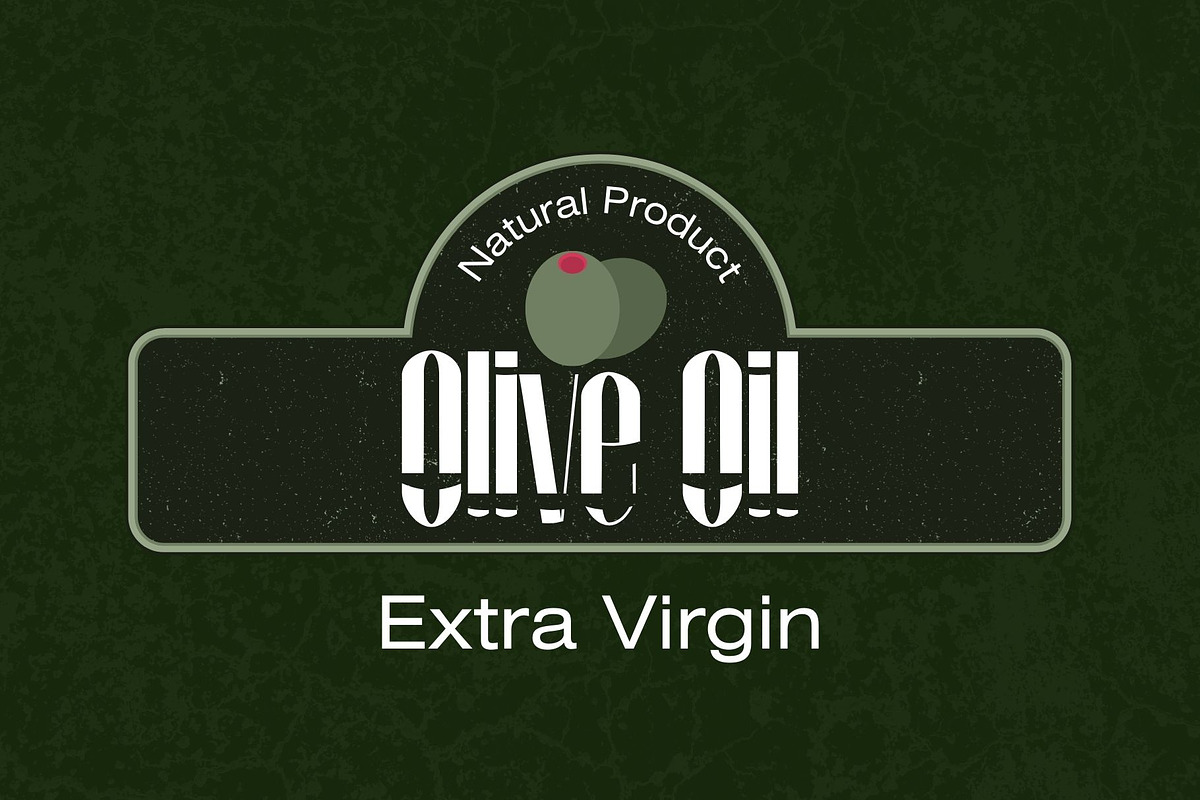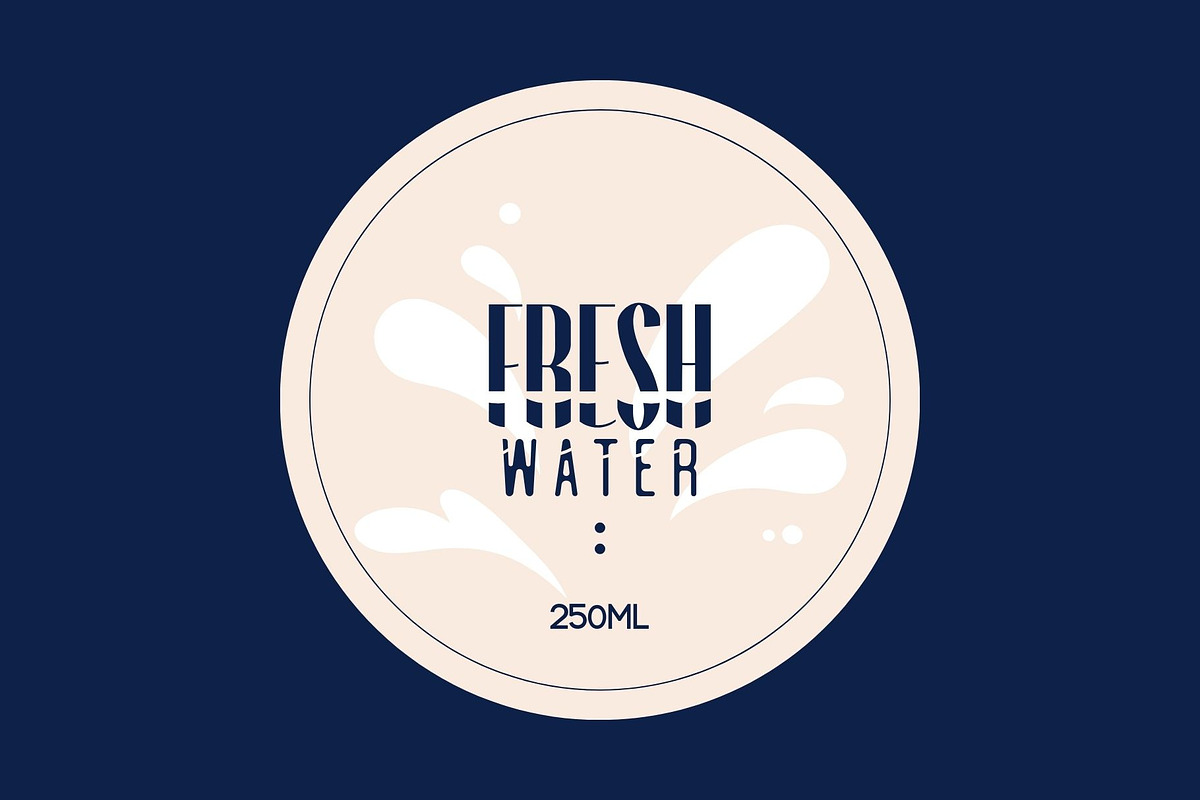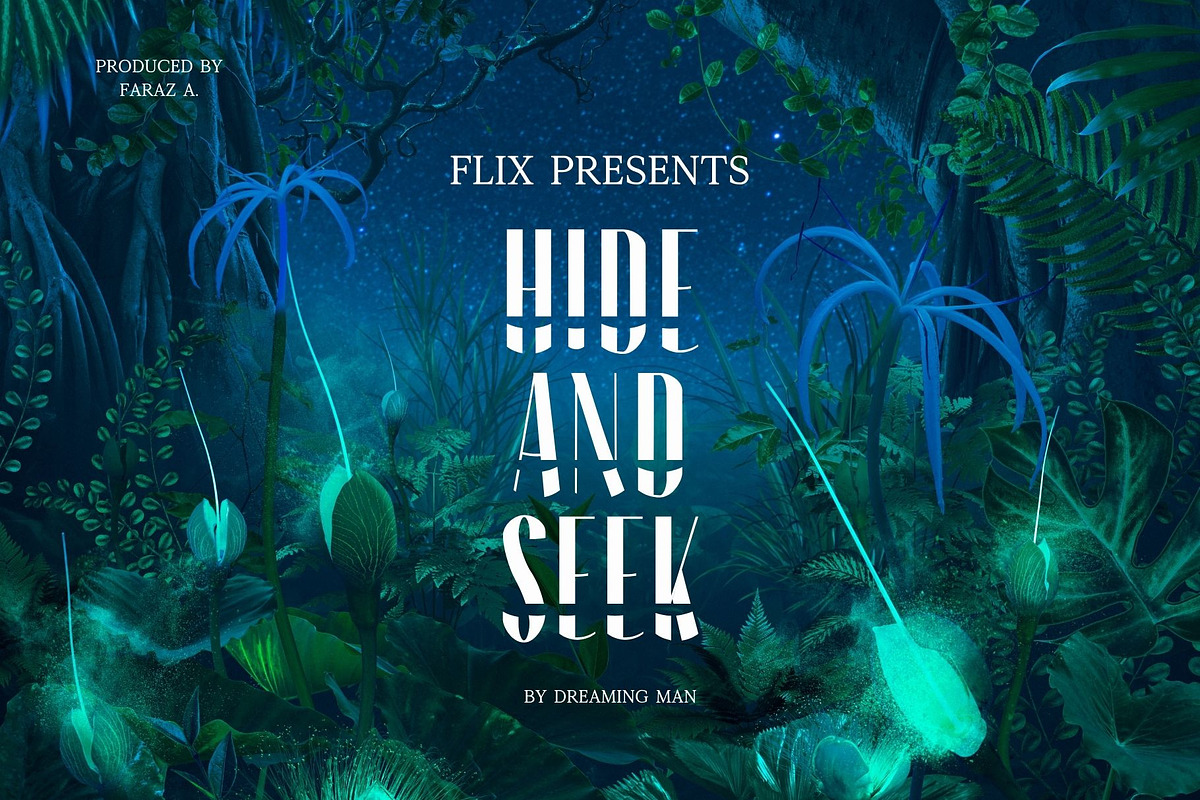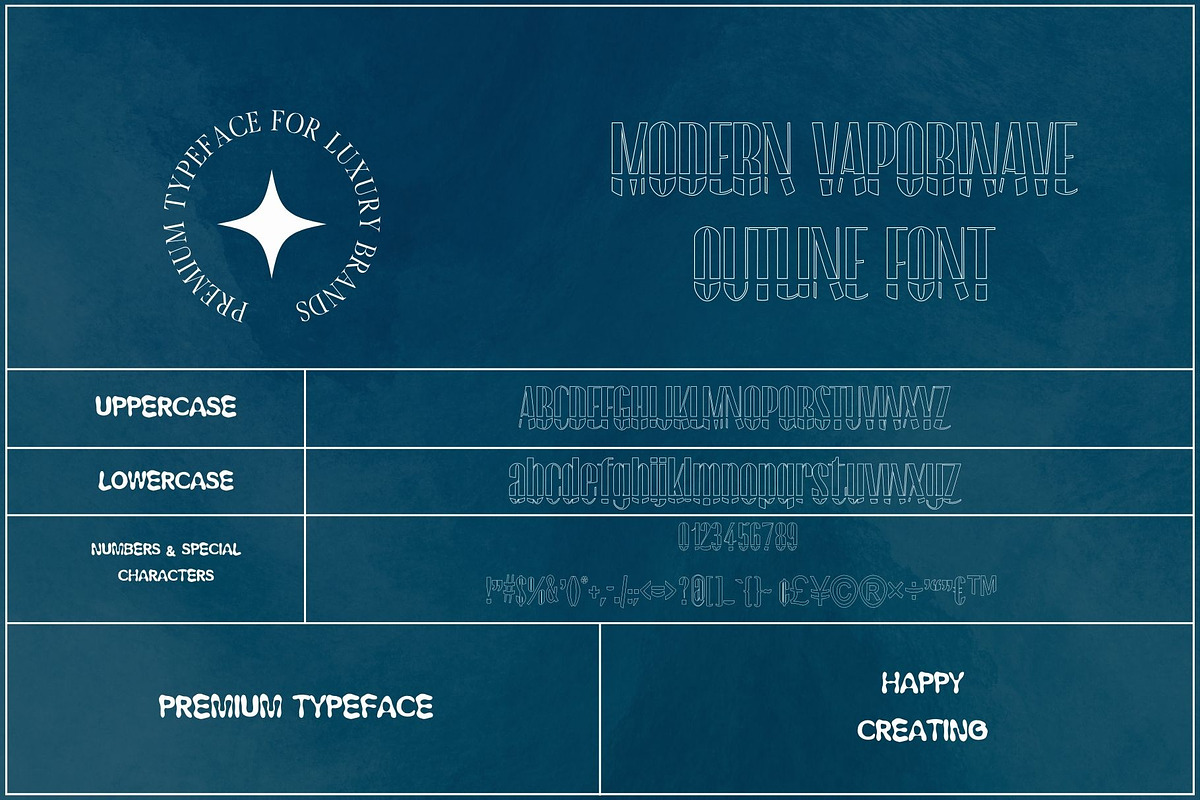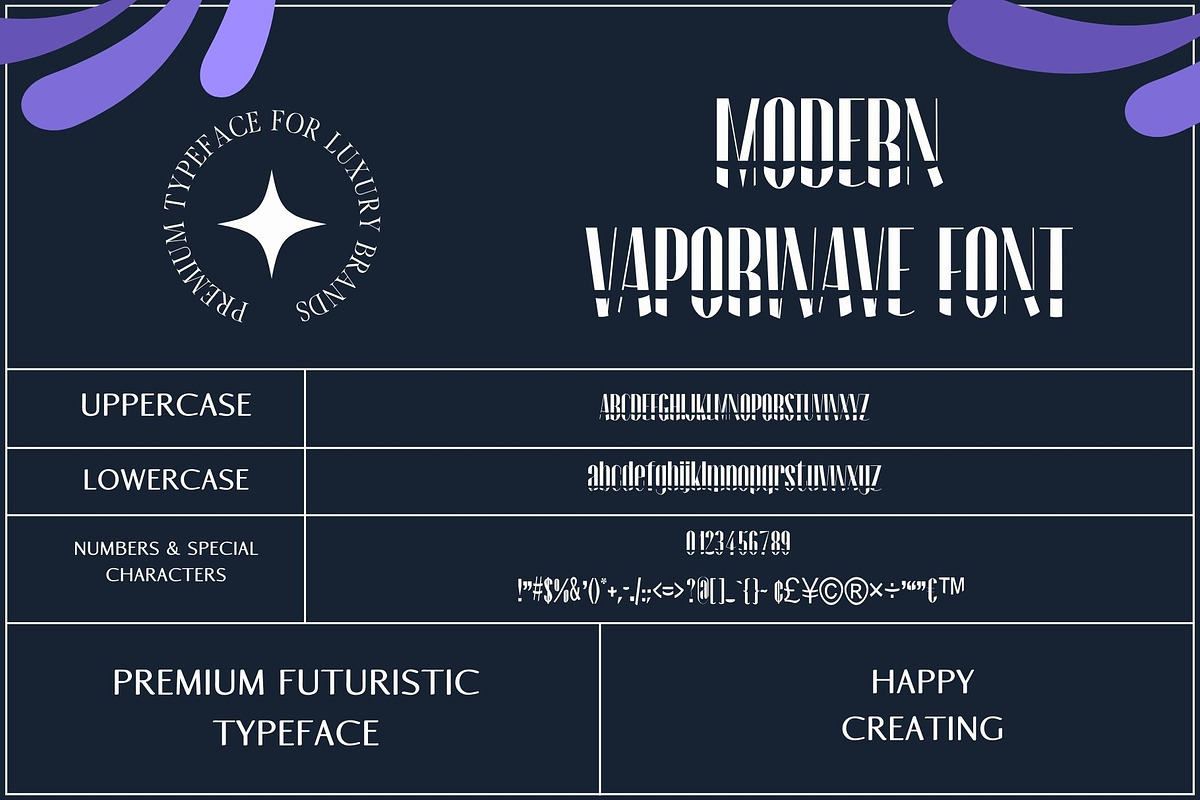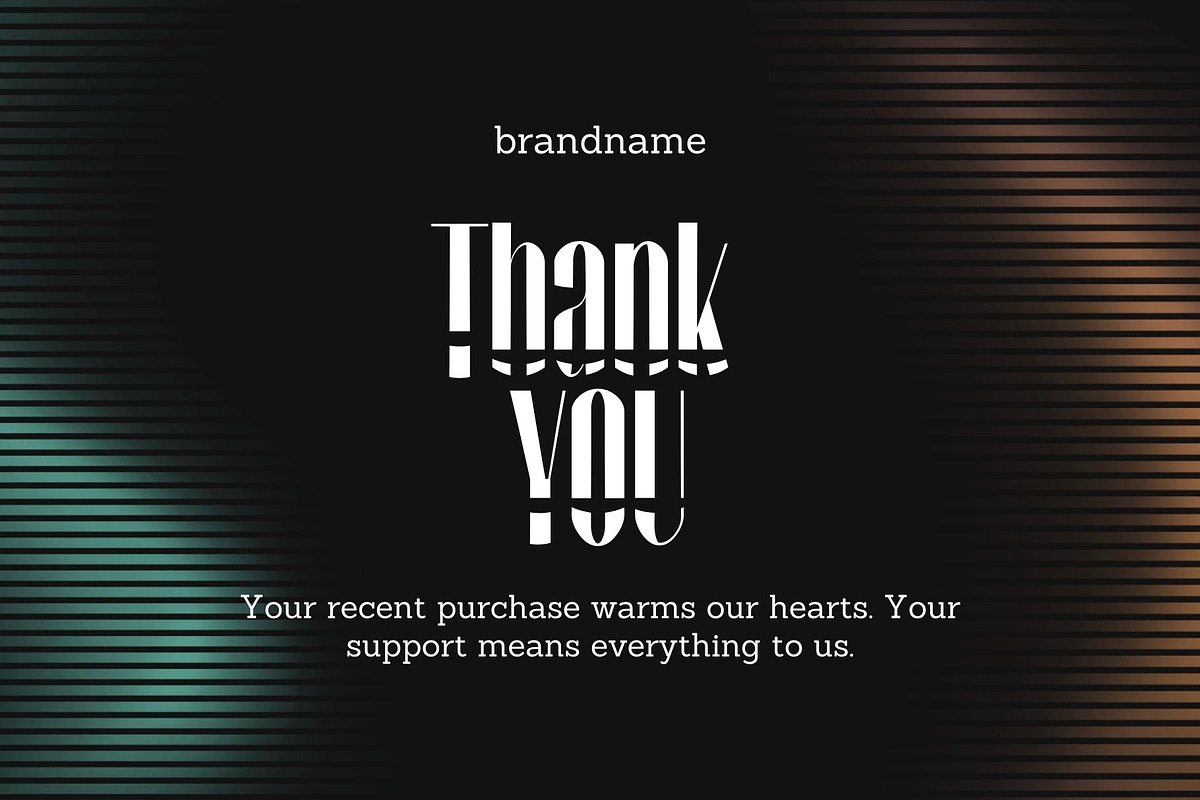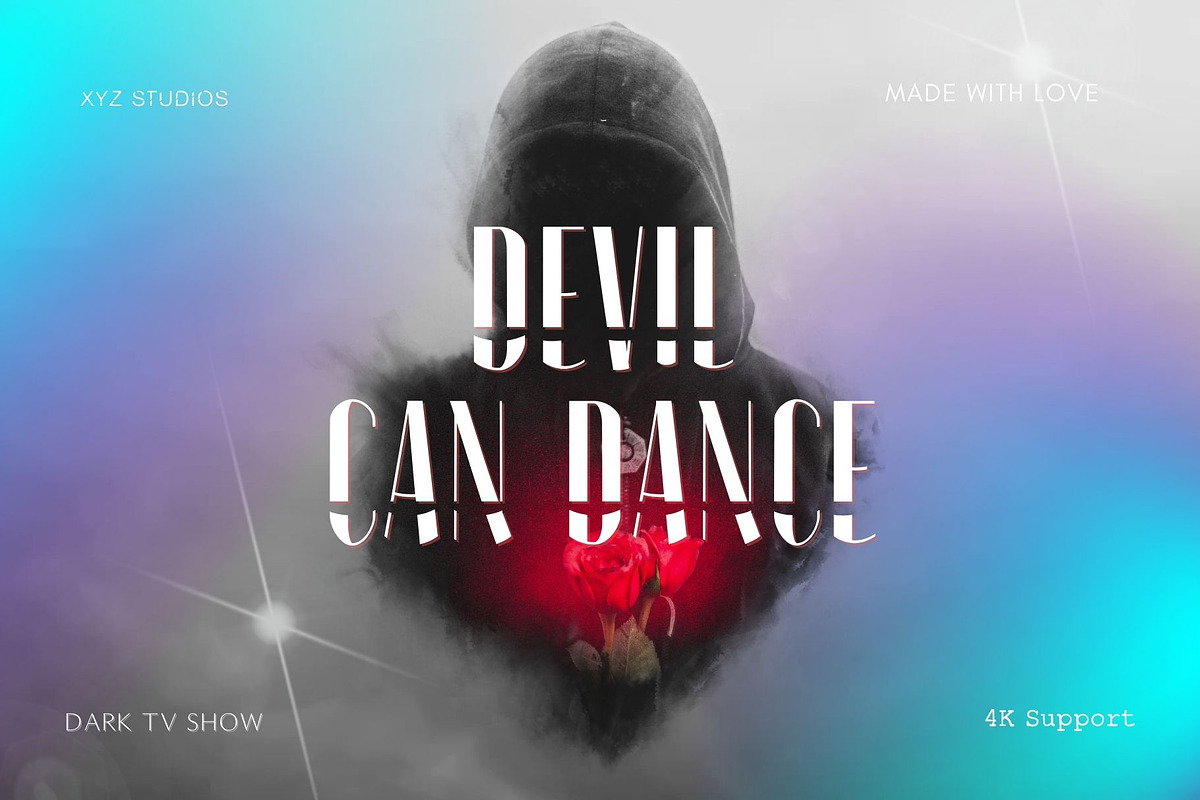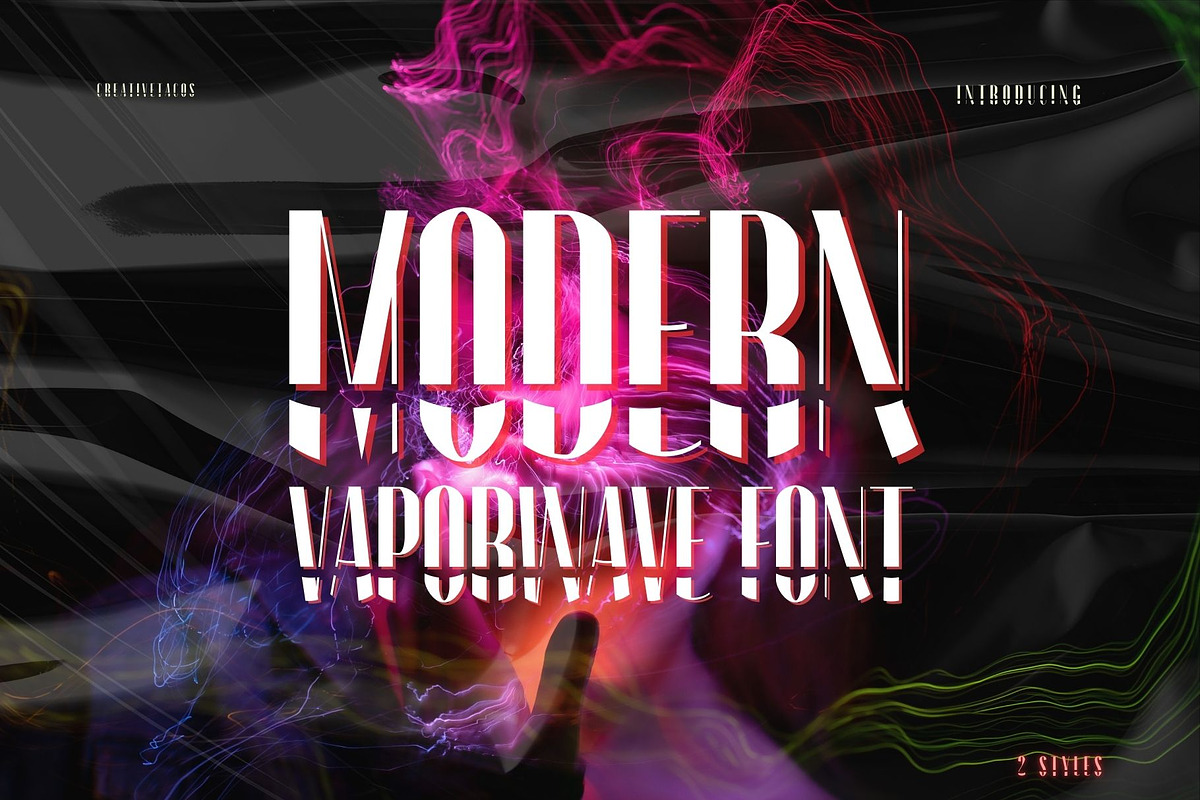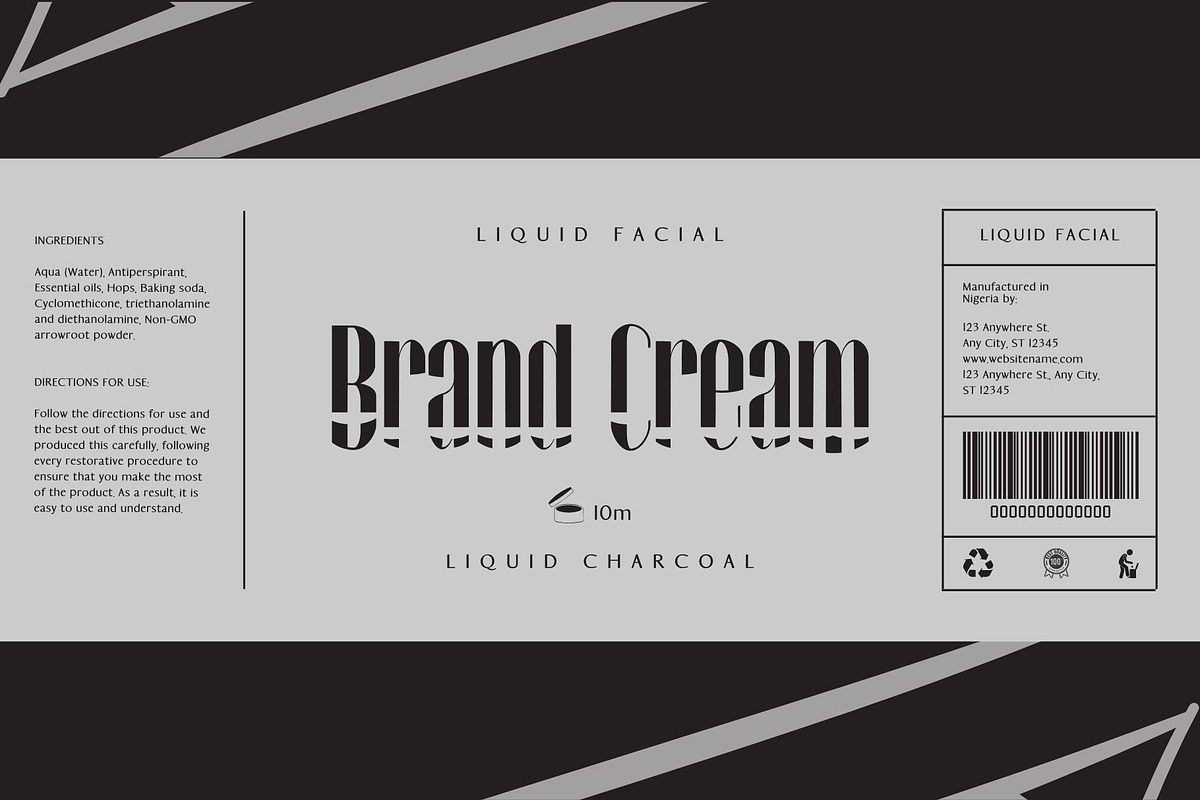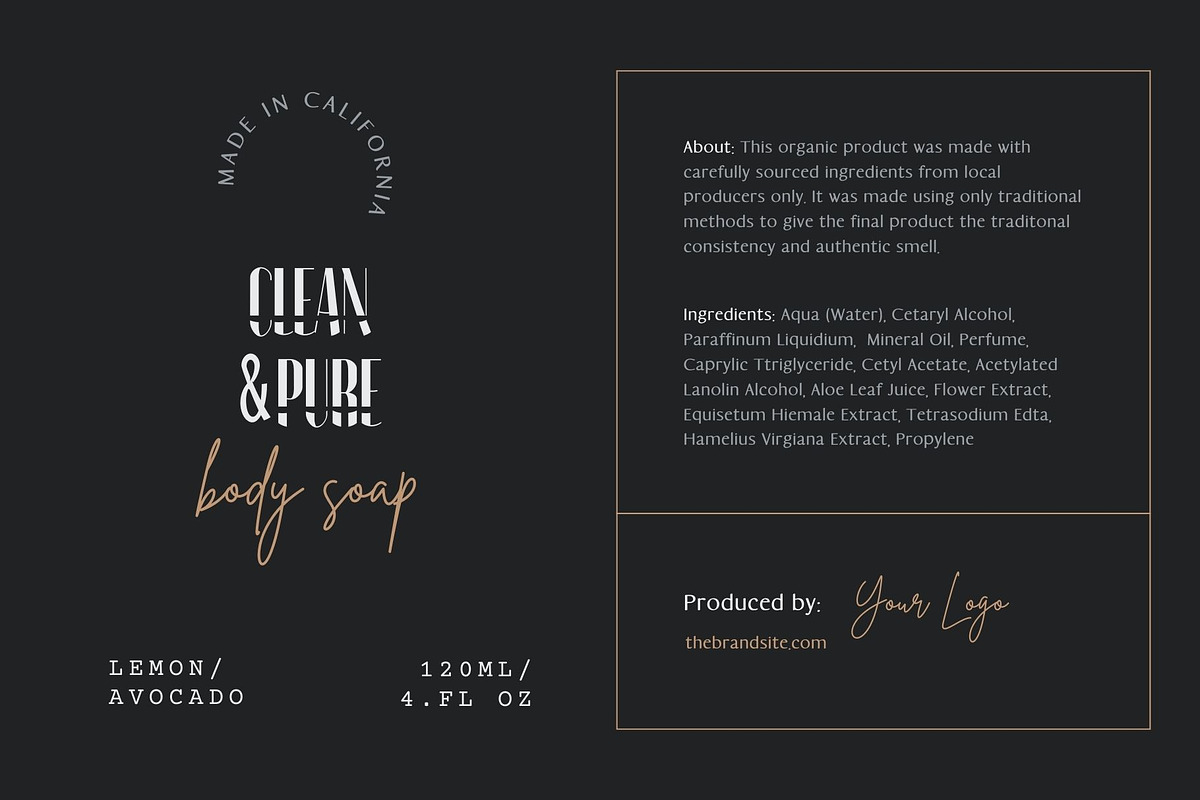
Modern Vaporwave Font
Modern Vaporwave Font, is a stylish typeface that blends the retro-futuristic aesthetics of the vaporwave movement with sleek, contemporary design elements. This font is perfect for creating eye-catching visuals, whether you're designing posters, album covers, or digital art.
With its bold, clean lines and striking contrasts, the Modern Vaporwave Font stands out in any project, offering two unique styles to choose from. Whether you're aiming for a nostalgic throwback or a cutting-edge look, this font delivers a dynamic and versatile solution for all your creative needs.
- Font Weight: Regular & Outline
- Uppercase Letters: All capital letters (A-Z)
- Lowercase Letters: All small letters (a-z)
- Numbers & Symbols: All numbers (0-9) and a variety of symbols
- Letters: Uppercase (A-Z) and lowercase (a-z)
- Numbers: 0-9
- Special Characters: Symbols like !”#$%&'()*+,-./:;=?@[]^_`{|}~ and more